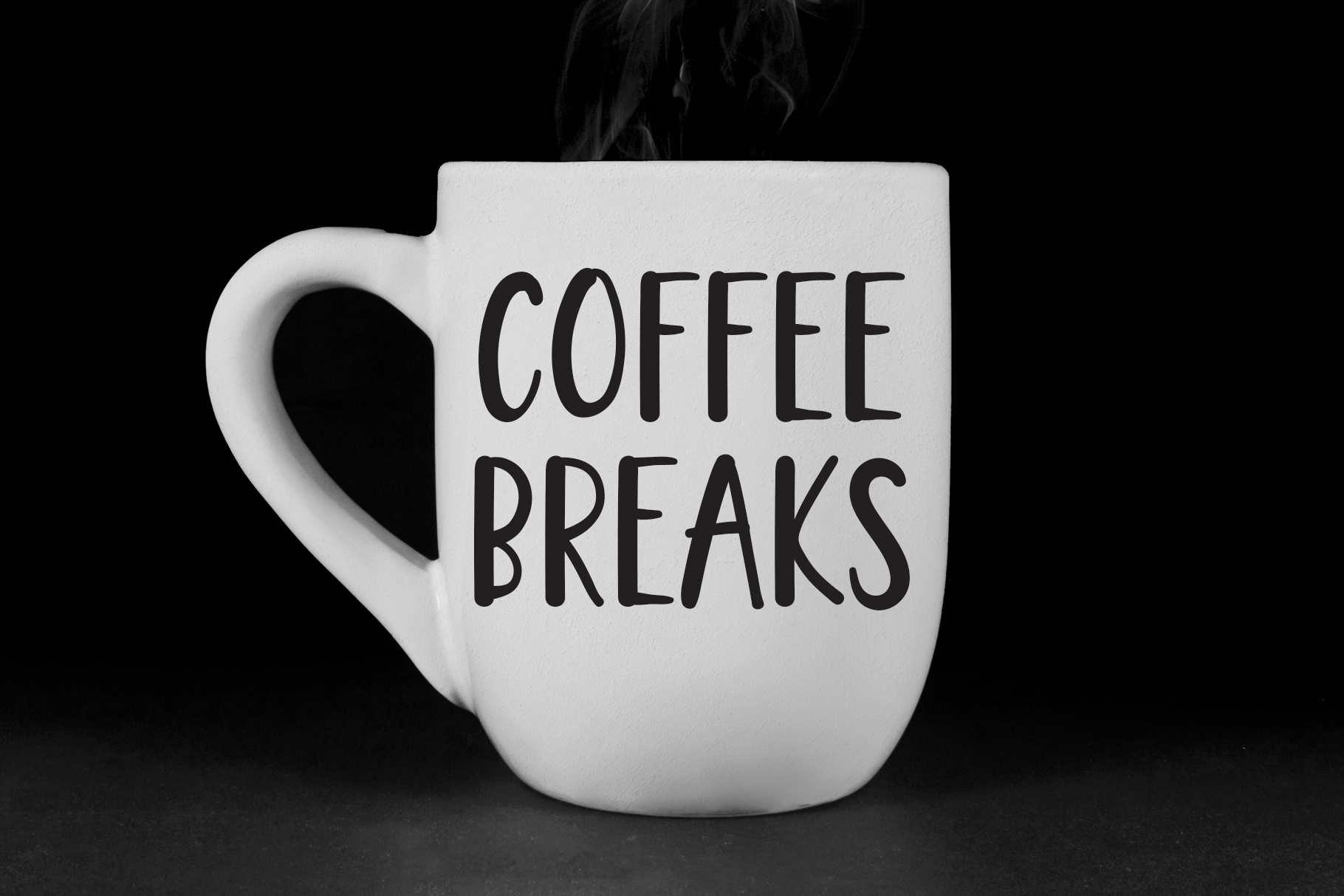
Babybird Font
Babybird Display Font
This font is a cute and fun display font. Use it to make your ideas even more realistic and create spectacular designs!
the latest style letters are perfect for wall displays, wedding invitations, social media post logos, advertisements, product packaging, product designs, labels, photography, watermarks, invitations, stationery, and any project that requires taste handwriting.